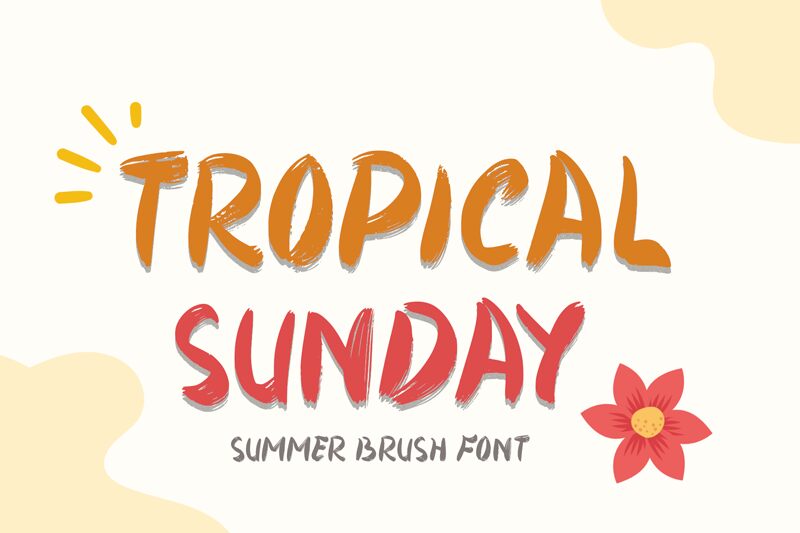
Tropical Sunday
Tropical Sunday is a bold hand brush display font. Its rough edges and natural design are brought about by the way the characters are created by hand.
Tropical Sunday font is perfect for greeting cards, posters, wedding invitations, logo design, flyers, social media graphics, web banners, book covers, and other eye-catching projects where a friendly and casual mood is present. This font is available for both personal and commercial use.